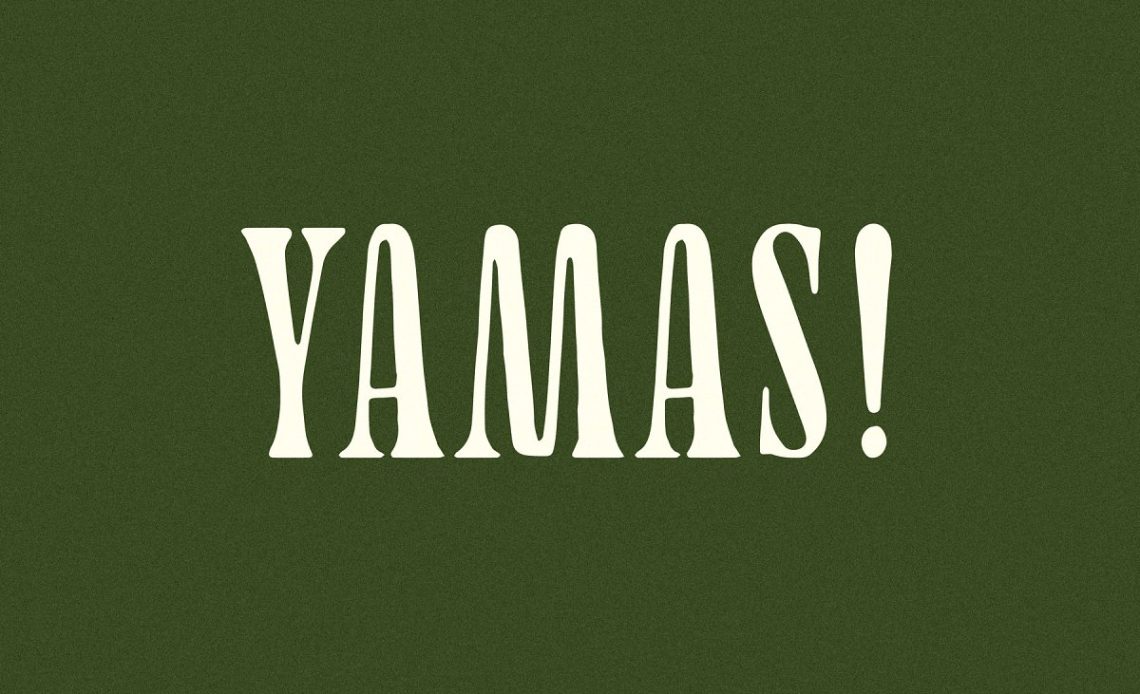
Welcome to the world of Yamas, a Soft Modern Serif Font, created by Taylor Penton. Yamas is a typeface that blends classic elegance with contemporary simplicity, making it perfect for anyone looking to add a touch of sophistication to their project.
The gentle curves of Yamas make it a perfect choice for those seeking a warm and friendly font, while its modern twist keeps it fresh and up-to-date. But what really sets Yamas apart is its wavy alternative, which can be easily accessed by simply holding down the shift key. This unique feature adds a touch of playfulness and creativity to the font, making it perfect for anyone looking to stand out from the crowd.
Yamas is a hand-drawn typeface, with the same song playing on repeat for consistency, making it a true labor of love. This attention to detail is evident in the final product, with each letter and number crafted with precision and care. And with the inclusion of alt versions, you can truly make this font your own.